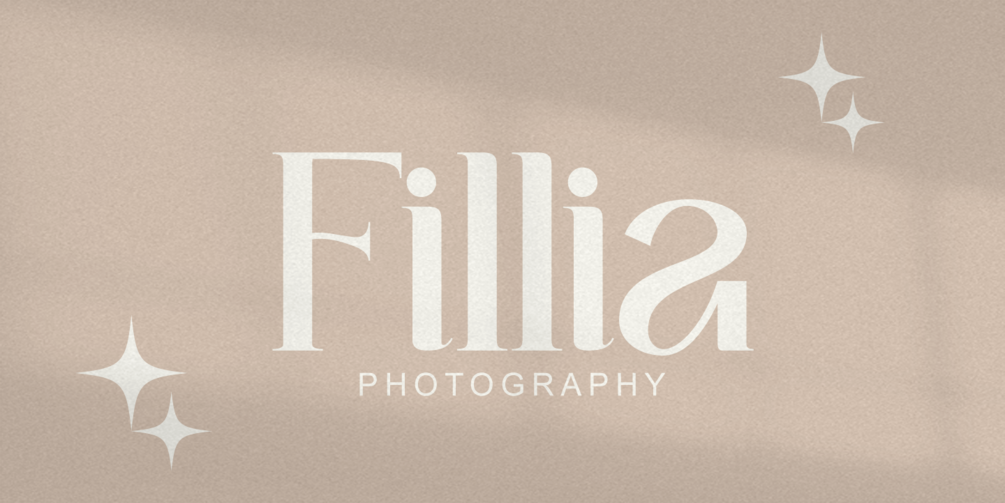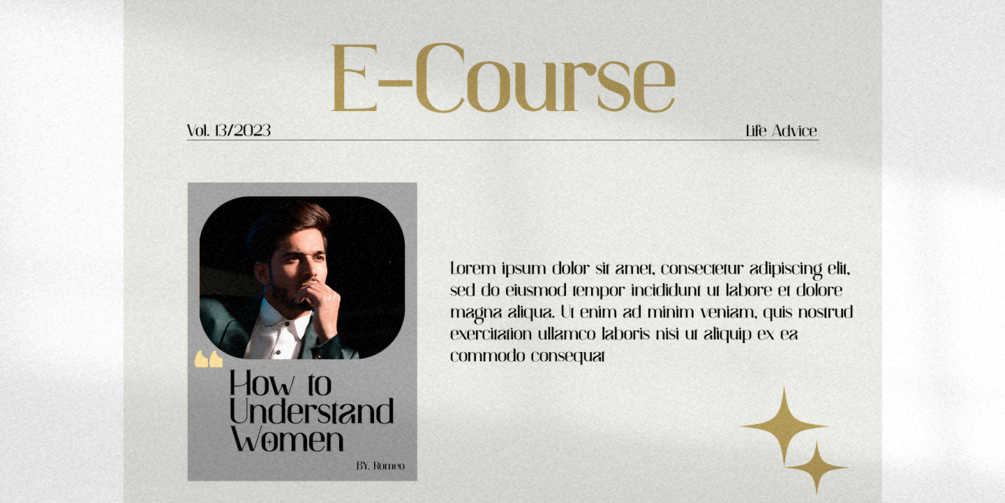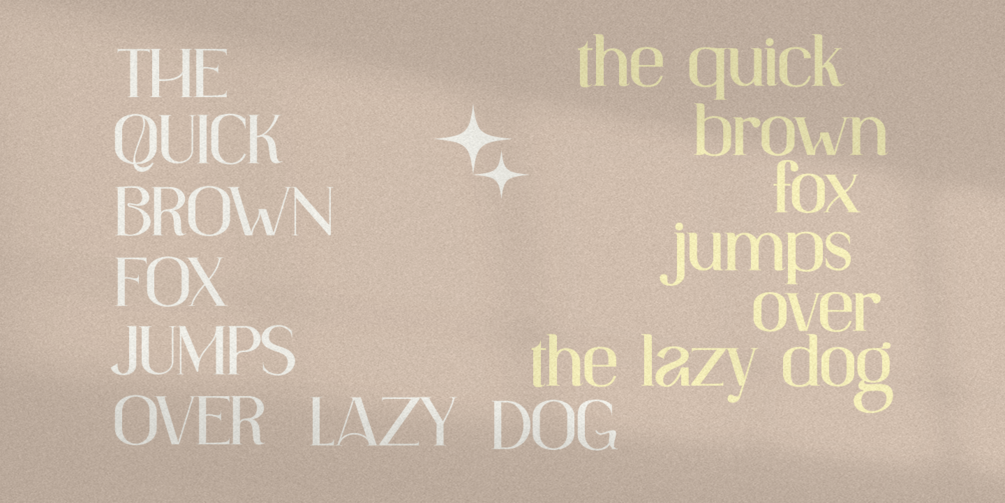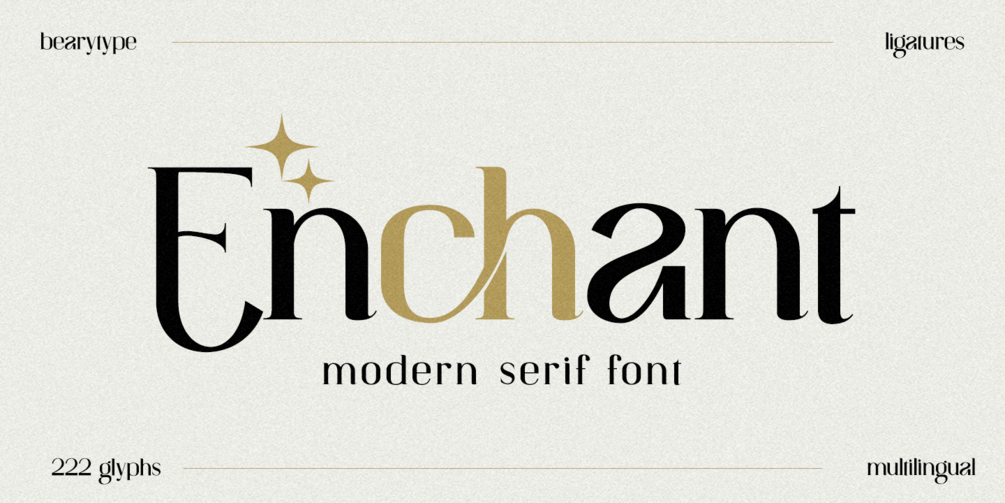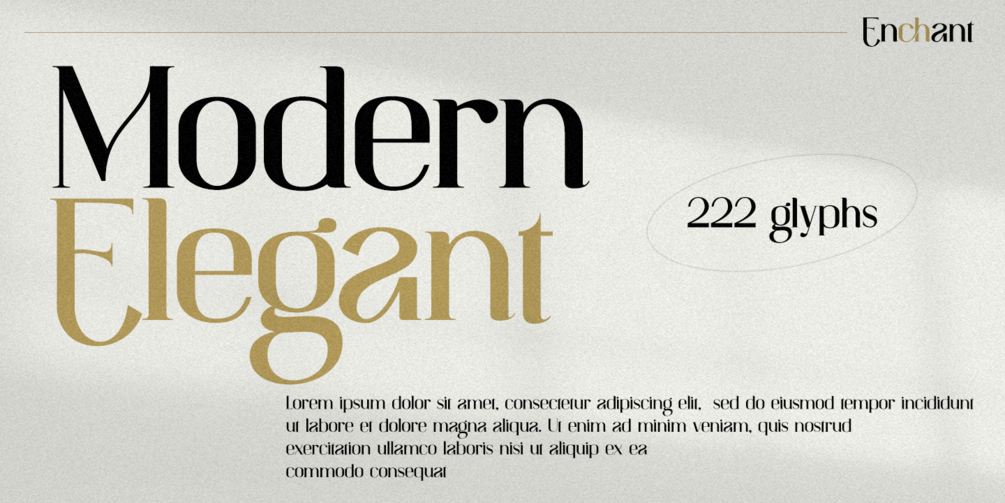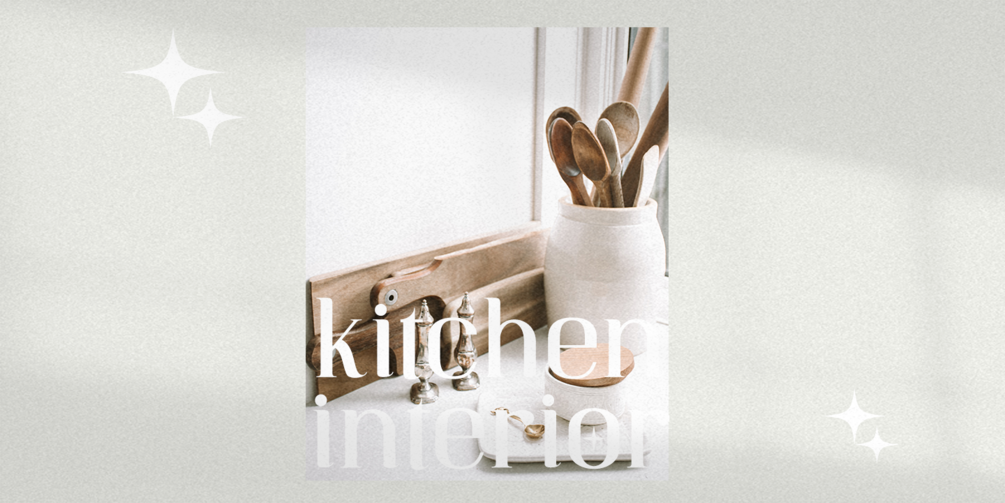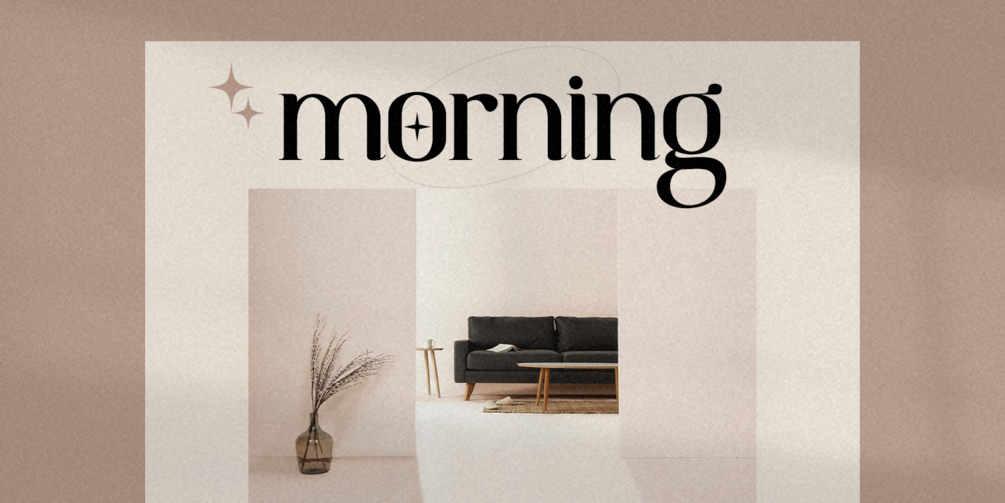
Enchant - Modern Serif Font
Enchant is a bold display font with a vintage touch, carefully designed to bring a classic feel. It’s perfect for a variety of graphic design projects such as branding, t-shirts, prints, logos, posters, quotes, and more, offering an elegant retro aesthetic.